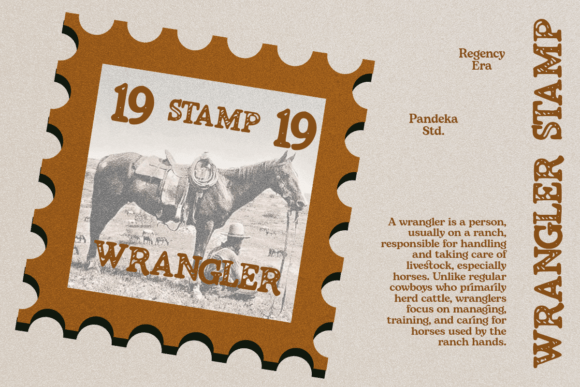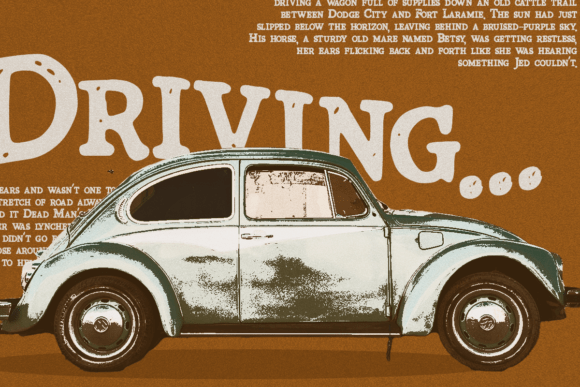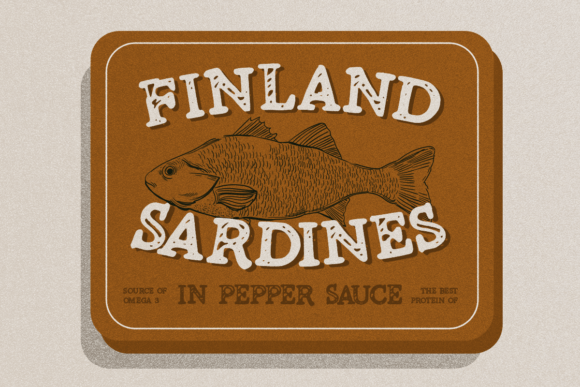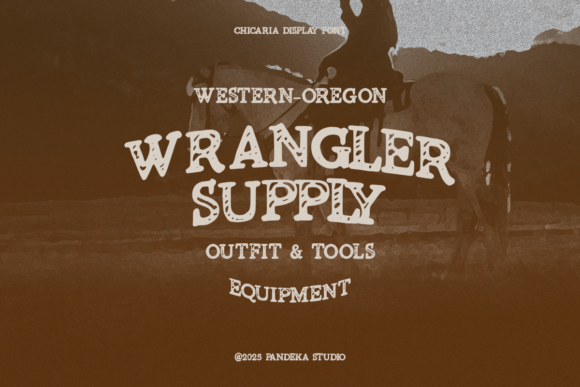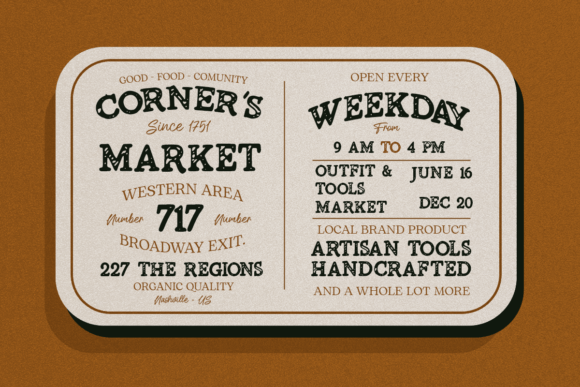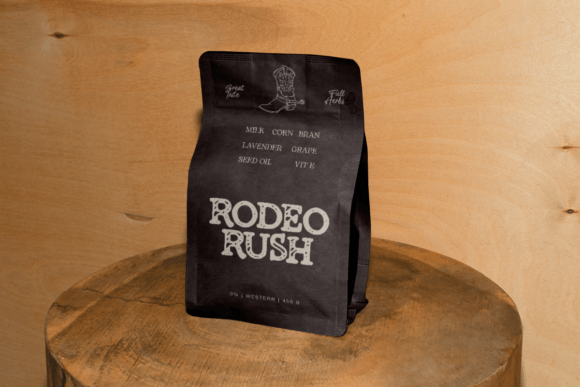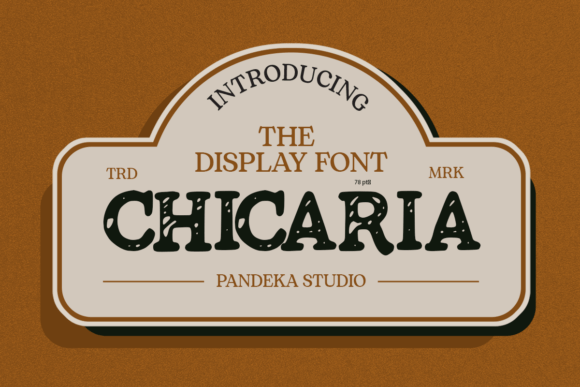
Introducing Chicaria Font: The Perfect Blend of Vintage Charm and Modern Elegance
In the world of typography, fonts play a crucial role in bringing a design to life. With the vast array of fonts available, it can be challenging to find the perfect one that captures the essence of your project. However, if you’re looking for a bold, vintage display font that combines classic typography with retro aesthetics and timeless elegance, look no further than Chicaria Font.
What is Chicaria Font?
Chicaria is a bold vintage display font that has been carefully crafted to bring a unique and playful touch to your designs. Its classic typography, combined with retro aesthetics, makes it perfect for vintage-inspired designs, bold lettering, packaging, posters, and branding. The font’s rough stamp effect and elegant style make it a standout choice for projects that demand a mix of nostalgia and modern flair.
Key Features of Chicaria Font
- Bold and Elegant: Chicaria boasts a bold and elegant style that is sure to make a statement in any design.
- Retro Aesthetics: The font’s retro aesthetic gives it a unique and playful touch, perfect for vintage-inspired designs.
- Rough Stamp Effect: The rough stamp effect adds a touch of texture and authenticity to the font, giving it a handmade feel.
- Timeless Elegance: Chicaria’s classic typography ensures that it remains timeless and elegant, making it suitable for a wide range of projects.
- Versatile: The font is versatile and can be used for a variety of projects, including bold lettering, packaging, posters, and branding.
Chicaria Font is perfect for designers and crafters who are looking to add a touch of vintage charm to their projects. Whether you’re working on a branding project, creating packaging, or designing a poster, Chicaria is sure to make your design stand out. Its unique and playful touch makes it an excellent choice for projects that require a mix of nostalgia and modern flair.
How to Use Chicaria Font
Chicaria Font is perfect for a wide range of projects, including:
- Vintage-inspired branding: Use Chicaria to create a bold and eye-catching brand identity that stands out from the crowd.
- Packaging design: Add a touch of elegance and sophistication to your packaging with Chicaria.
- Poster design: Create bold and eye-catching posters with Chicaria’s unique and playful touch.
- Social media graphics: Use Chicaria to create engaging and stylish social media graphics that capture the attention of your audience.
In conclusion, Chicaria Font is a bold vintage display font that combines classic typography with retro aesthetics and timeless elegance. Its unique and playful touch makes it perfect for vintage-inspired designs, bold lettering, packaging, posters, and branding. With its rough stamp effect and elegant style, Chicaria is sure to make a statement in any design. Whether you’re a designer or crafter, Chicaria is an excellent choice for projects that demand a mix of nostalgia and modern flair.